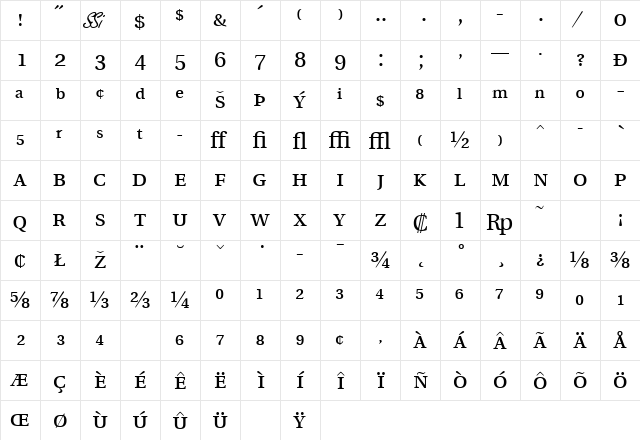
VeracityProSSK Regular
Design Context for VeracityProSSK Typeface
VeracityProSSK takes a measured approach to typography — its balanced proportions and neutral character make it a reliable workhorse for both digital and print work.